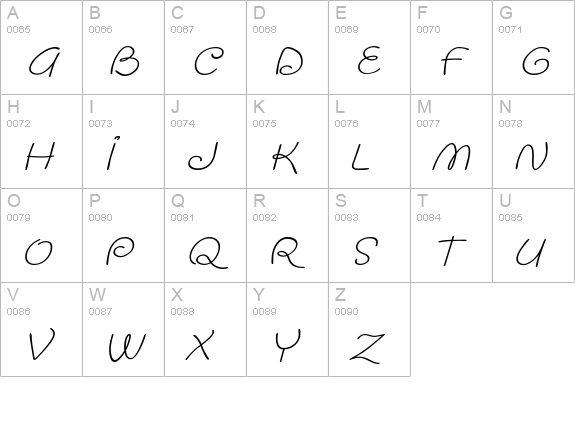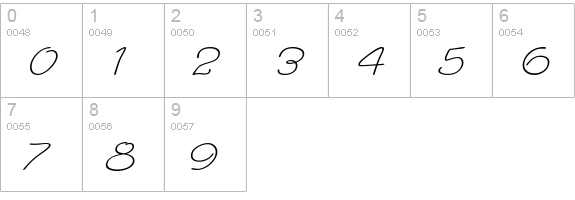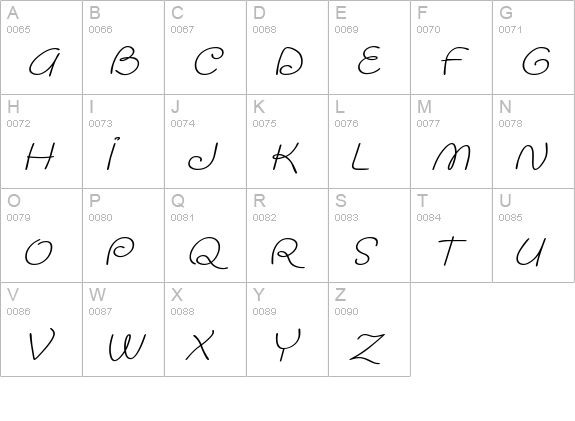
Morning Limerick BTN Lt Oblique is a distinctive, italic variant in the Morning typeface family \xE2\x80\x94 well suited to design and typography projects.
Morning Limerick BTN Lt Oblique font is a charming and elegant typeface that brings a touch of whimsy to your designs. Its slanted and playful letterforms add a unique flair to any project, making it perfect for headlines, invitations, and more. The delicate curves and thin strokes of this font exude a sense of sophistication and style. Best of all, Morning Limerick BTN Lt Oblique font is freely available to download at FontsMarket.com. This means you can easily access this beautiful typeface and incorporate it into your creative endeavors without any cost. With its versatility and aesthetic appeal, Morning Limerick BTN Lt Oblique font is sure to become a favorite in your font collection.